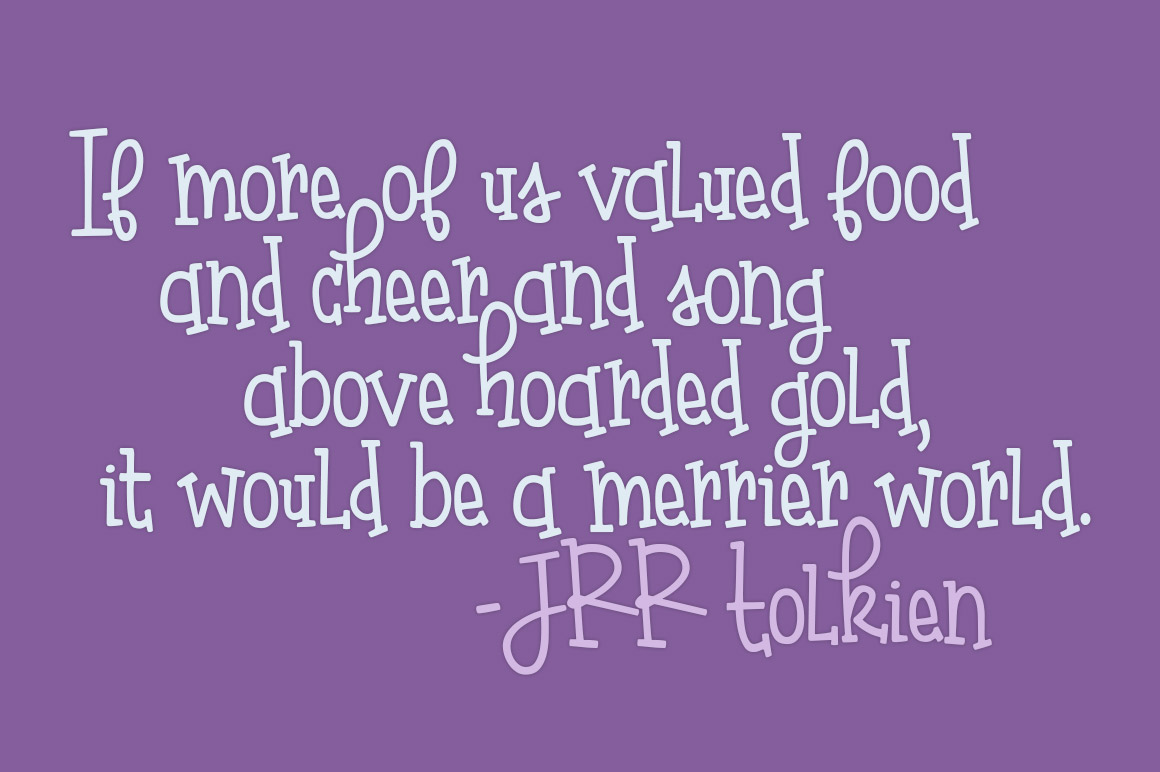
Introduction to Huffleclaw Font
Have you ever stared at a blank canvas, searching for the perfect font to bring your creative project to life? For designers, finding the right typography can be a game-changer. It’s that moment when everything clicks, and your vision starts to take shape. This is exactly what the Huffleclaw Font aims to provide – a beautiful, bold, and playful font that adds a touch of magic to any design.
About Huffleclaw Font
With its transparent background and high-quality design, the Huffleclaw Font is an excellent addition to any design resource. Whether you’re working on a project that requires a whimsical touch or a bold statement, this font is sure to deliver. And the best part? It’s available for free download, making it a valuable resource for designers of all levels.
The Power of Huffleclaw Font
So, what makes the Huffleclaw Font so special? Its unique blend of playfulness and sophistication makes it a standout in the world of typography. Whether you’re looking to add a touch of personality to your design or create a bold statement, this font is sure to impress.
Key Features of Huffleclaw Font
- High-quality, professional font suitable for creative projects requiring a unique design resource.
- Transparent background, allowing for seamless integration with any background or design element.
- Available in a range of sizes and resolutions, including 300 DPI, ensuring optimal clarity and readability.
- Unique, hand-drawn style with intricate details, setting it apart from standard fonts and adding a touch of personality to any design.
- Perfect for use in graphic design, digital art, and other creative endeavors where a distinctive font is desired.
Honest Review: Huffleclaw Font
I recently came across the Huffleclaw Font and I must say it’s a delightful addition to any creative project. This font is perfect for those who want to add a touch of whimsy and fantasy to their designs.
One of the standout features of the Huffleclaw Font is its high quality and versatility. It’s suitable for a wide range of design projects, from book covers to magazine layouts.
- ✨ High quality and crisp typography
- ✨ Versatile and suitable for various design projects
- ⚠️ Limited support for transparent background, which may be a hindrance for designers who require this feature
- ⚠️ Some users may find the font’s style too whimsical or overused, which could affect its overall impact
Overall, I think the Huffleclaw Font is a solid addition to any designer’s toolkit. While it may have some limitations, its high quality and versatility make it a valuable resource for designers looking to add some magic to their creative projects.
Huffleclaw Font
The Huffleclaw Font is a high-quality design resource perfect for creative projects. Its unique style and transparent background make it an ideal choice for designers looking to add a touch of magic to their work.
Tips for Getting the Most Out of Huffleclaw Font
To get the most out of the Huffleclaw Font, use it sparingly to add emphasis to your design. Its unique style can be overwhelming if used too much.
The Huffleclaw Font is commonly used in fantasy-themed designs, such as book covers, posters, and website headers. Its magical style makes it perfect for adding a touch of whimsy to your design.